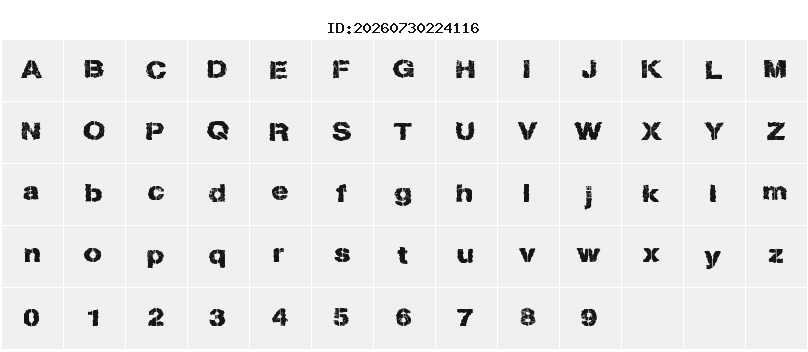
LostType Preview
• Designer: Xerographer Fonts Max Infeld
• Manufacturer: Xerographer Fonts
• Description: Made at Xerographer Studios in Ojai,CA
About LostType.ttf
LostType.ttf is a modern, elegant sans-serif font designed for ultimate readability and visual harmony. Perfect for branding, headlines, web design, and print materials.